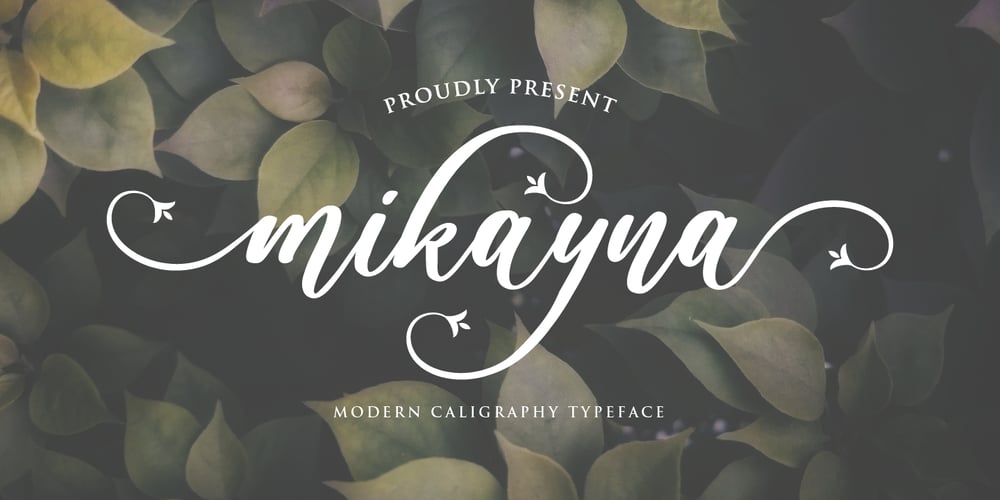
Mikayna Font Family was designed by Novia Himatunnisa and published by Nissa Nana. Mikayna contains 1 styles and family package options. Mikayna is an enchanting handwritten font. This versatile script font has a wide spectrum of applications ranging from greeting cards to headlines and is guaranteed to add a romantic feel to your next project.